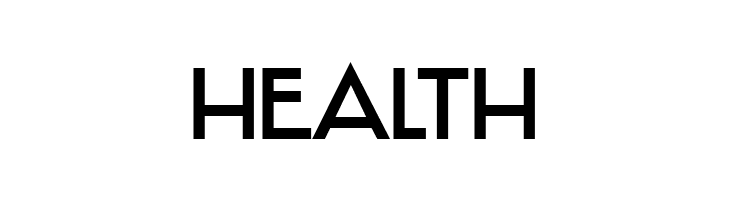
A bold, cursive font with flowing, connected characters and decorative swashes.
A pixelated, blocky font with a retro digital style.
A modern, geometric font with clean lines and uniform stroke width.
A playful, bubbly font with a liquid-like texture inside bold, rounded characters.
A bold, playful font with a hand-drawn, energetic style.
A decorative gothic font with intricate, sharp-edged letterforms.
A bold, angular font with a strong slant, exuding energy and modernity.
A bold, italic font with a dynamic and sporty style.
A bold, three-dimensional font with a dynamic, shadowed style.